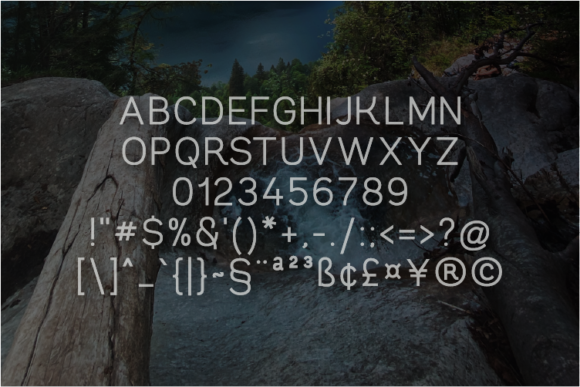
Introduction to Leigho Font
Leigho is a great sans serif font.
Use this gorgeous and unique typeface to bring any DIY project to life .
Key Features of Leigho Font
Why Choose Leigho Font?
Leigho Font offers exceptional quality and versatility, making it a valuable addition to your design toolkit. Whether you’re creating for personal projects or commercial use, Leigho Font delivers professional results.